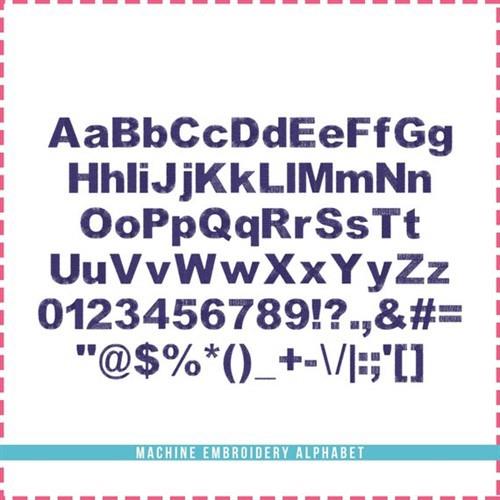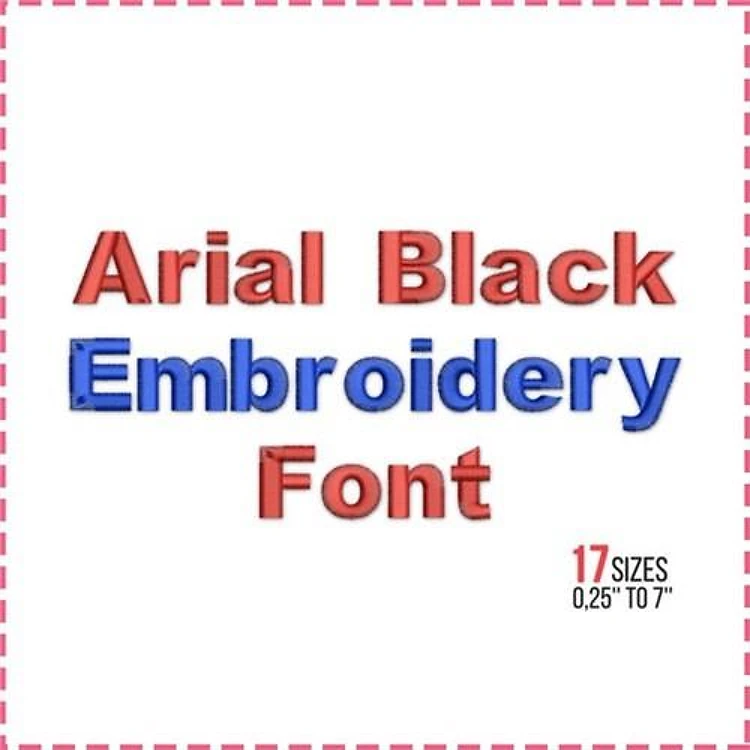
Maya Kreations is happy to present Arial Black Font machine embroidery font which has Classic block machine embroidery font in bold, block letters, suitable for projects on jackets or banners. Visually striking in red and blue. Available in PES, DST & 8 other formats. included. If you would like to view more embroidery fonts and alphabets please search our embroidery fonts page.